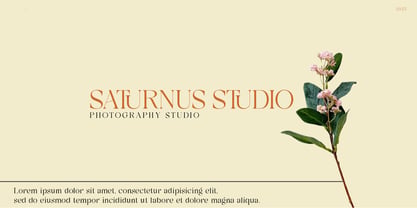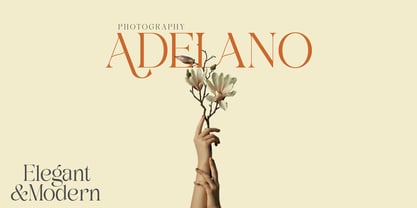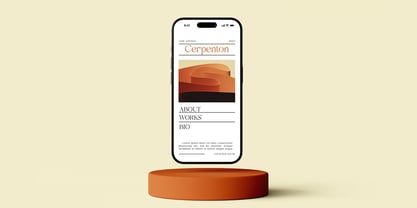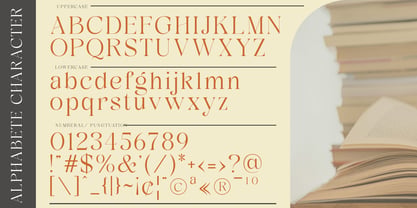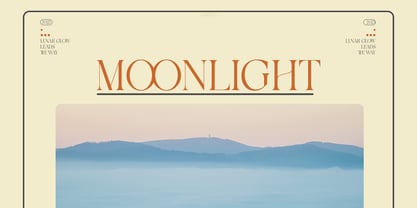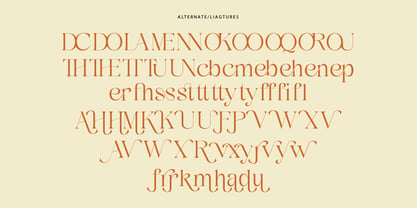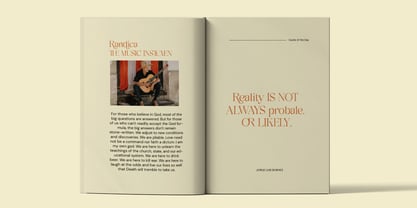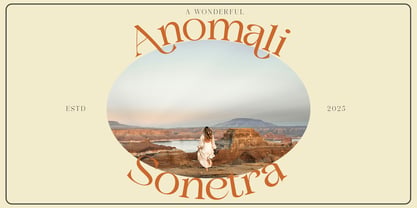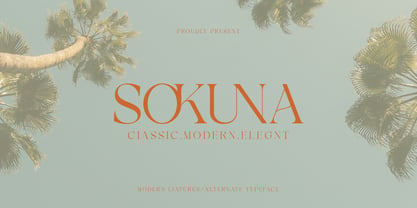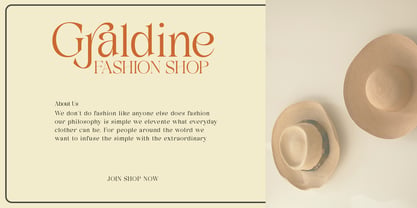
Sokuna
Sokuna is a refined serif typeface that seamlessly blends timeless elegance with contemporary sophistication. Designed with graceful serifs, delicate stroke transitions, and high-contrast letterforms, Sokuna delivers a luxurious visual presence that feels both classic and modern.
Crafted for designers who seek premium aesthetics, Sokuna features distinctive character shapes that bring personality, refinement, and versatility to every project. From high-fashion editorials and luxury branding to premium packaging and wedding stationery, Sokuna creates a memorable and elevated typographic experience.
Its balanced proportions and sophisticated details make it equally effective for striking headlines, elegant logos, and immersive editorial layouts.
The latest update introduces 60+ new glyphs and stylistic characters, expanding creative possibilities while enhancing language support and typographic flexibility.
In addition, Sokuna now includes a Variable Font file, allowing seamless control over weight variations for greater design freedom, smoother workflow integration, and improved performance across both print and digital environments.
Features
• Elegant Modern Serif
• Variable Font Included
• 60+ New Glyphs & Alternates
• High-Contrast Letterforms
• Refined Editorial Aesthetic
• Luxury Branding Ready
• Logos & Visual Identity
• Fashion & Beauty Projects
• Premium Packaging Design
• Wedding & Event Stationery
• Magazine & Editorial Layouts
• Multilingual Support
Whether you're building a luxury brand, designing a fashion campaign, or crafting sophisticated editorial content, Sokuna provides the elegance, flexibility, and modern refinement needed to make every project stand out.